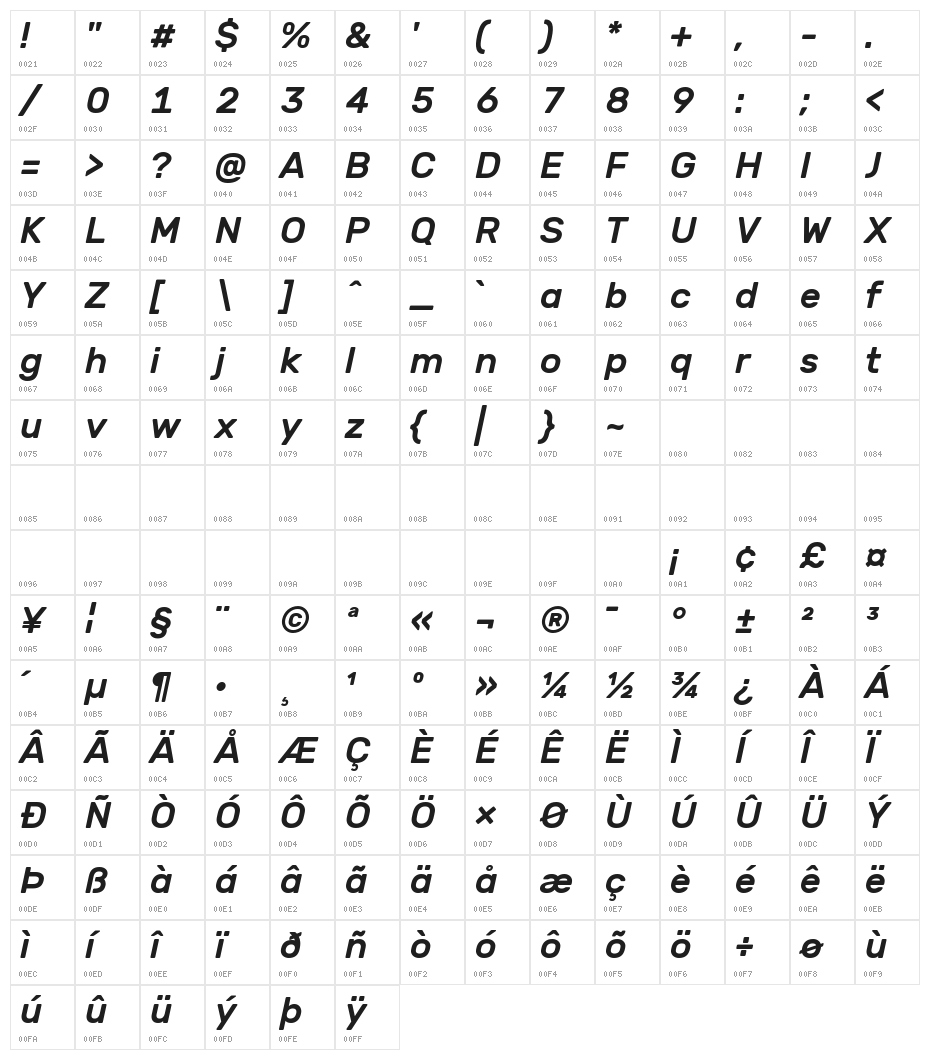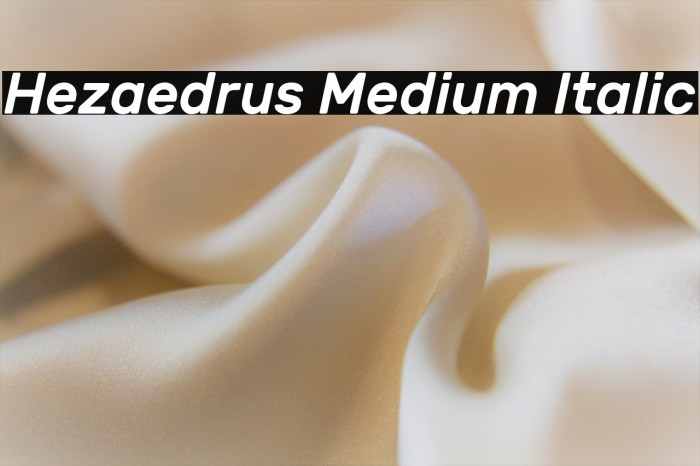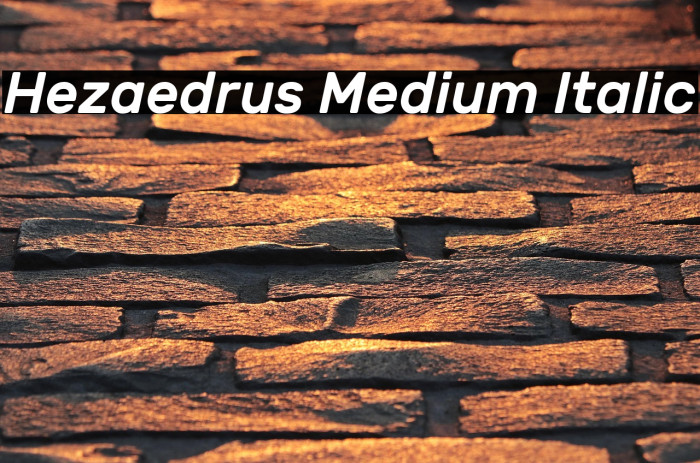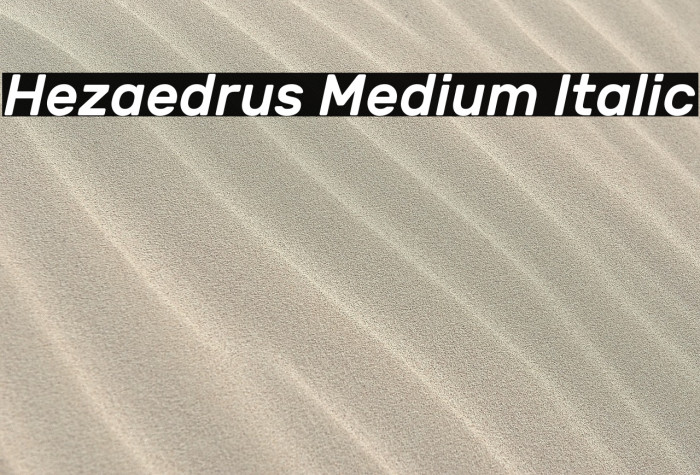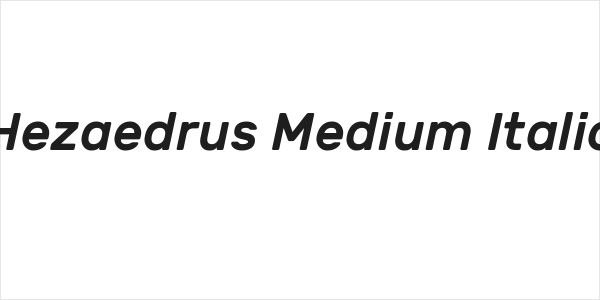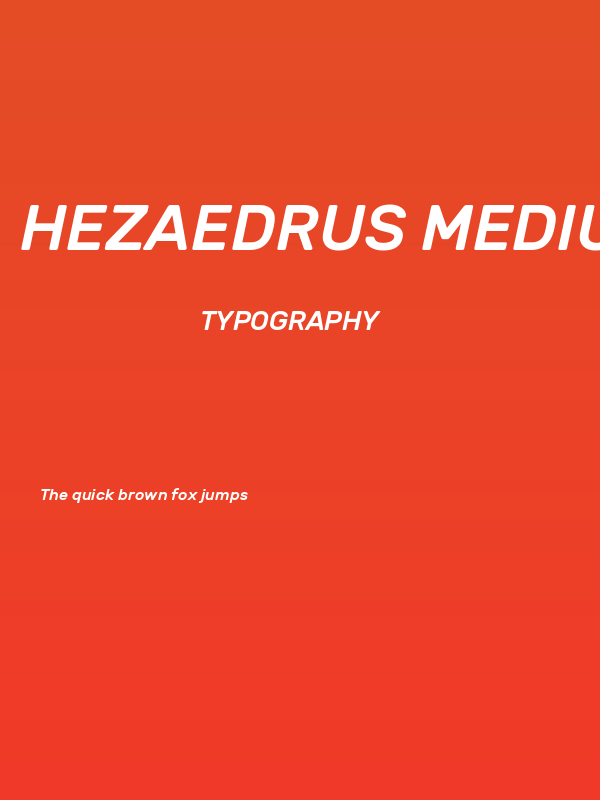
Hezaedrus Medium Italic Font
Hezaedrus Medium Italic Description
This font features a clean and modern design with a slight italic slant, giving it a dynamic and forward-moving appearance. The characters are well-proportioned, with consistent stroke widths that provide a balanced and harmonious look. The uppercase letters are bold and assertive, while the lowercase letters maintain a friendly and approachable feel. The numerals are clear and easy to read, making them suitable for various applications. Special characters are distinct and well-integrated into the overall design, ensuring versatility in usage.
Proposed ProjectsIdeal for branding, advertising, digital content, and editorial design projects.